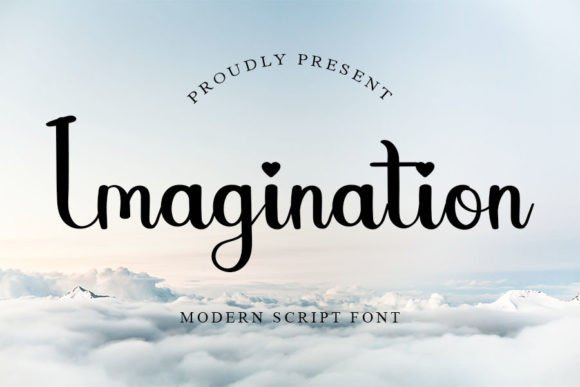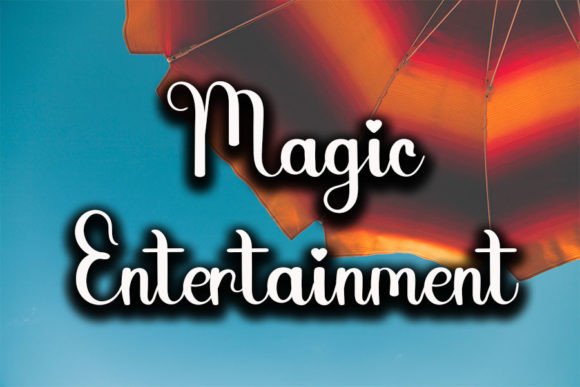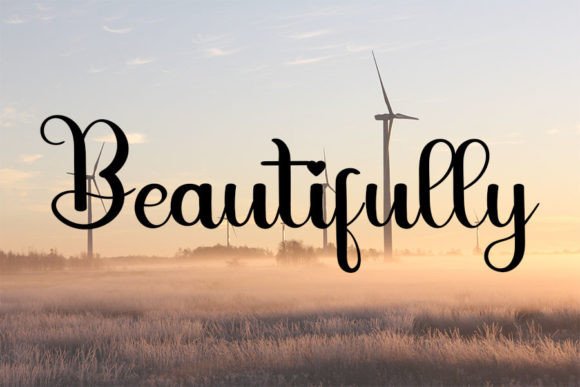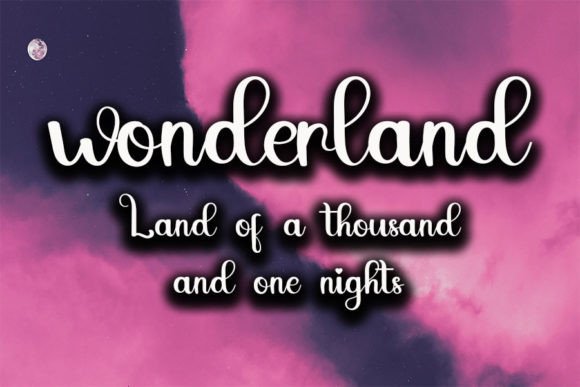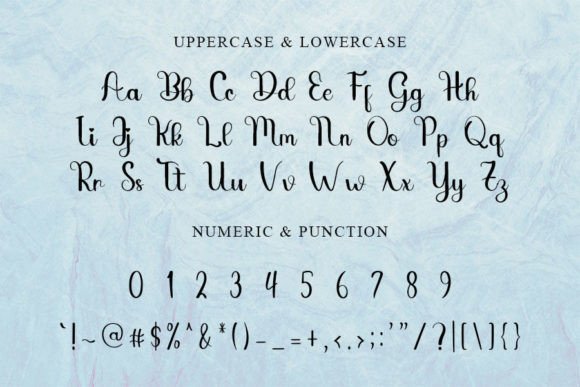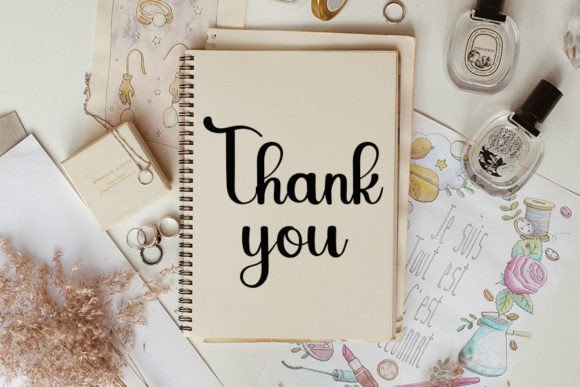
Imagination Font
About Imagination Font
**Imagination: A Colorful Handwritten Font with Elegance**
Imagination is a vibrant handwritten font that has been thoughtfully crafted to blend colorful personality with a touch of elegance. With its clean yet slightly quirky style, this font is a versatile choice for all your design needs, including logos, branding, social media content, and creative DIY projects.
The charm of Imagination lies in its colorful and handwritten characters. Each letter is designed to radiate a lively and creative personality while maintaining an underlying elegance. Whether you’re creating a logo for an imaginative brand or crafting social media content that stands out, Imagination adds a unique and spirited flair.
Imagination’s versatility makes it a valuable asset for a wide range of design contexts. It can be used to create eye-catching logos that leave a memorable impression, infuse a playful and creative vibe into branding materials, or add a touch of fun to your DIY projects. Its clean lines ensure that your designs maintain a polished and visually appealing appearance.
In summary, Imagination is more than just a font; it’s a source of vibrancy and elegance that enhances your design projects. Its colorful handwritten style and touch of quirkiness make it an invaluable choice for infusing personality and creativity into your work. With Imagination, your creative projects will shine with a lively and imaginative charm. Choose Imagination, and let your designs captivate with its colorful and elegant personality.